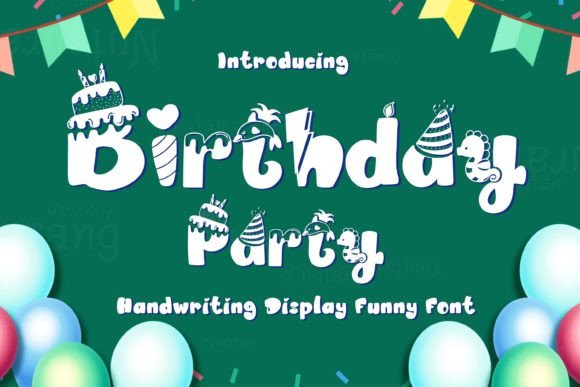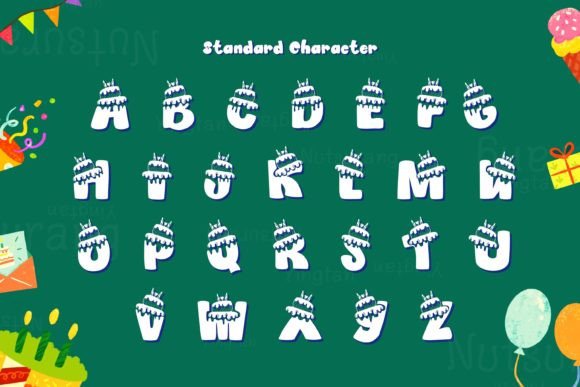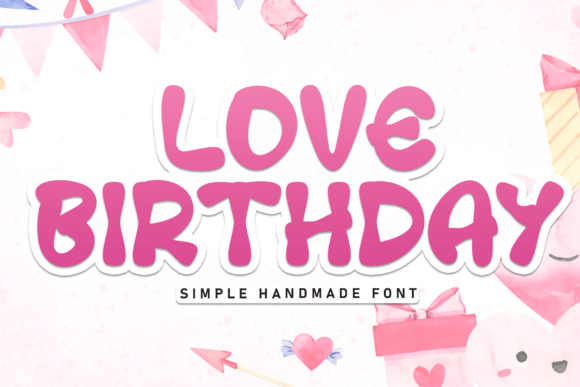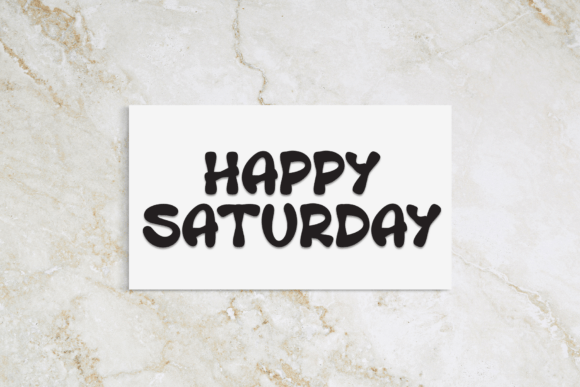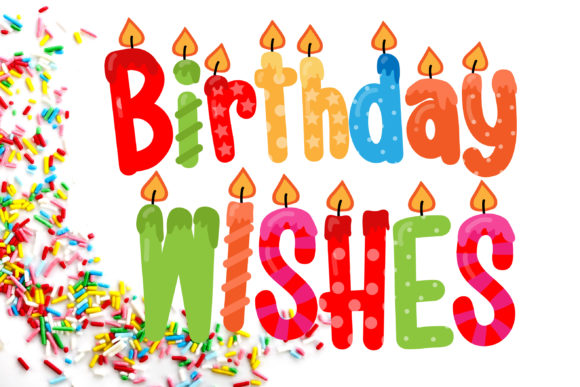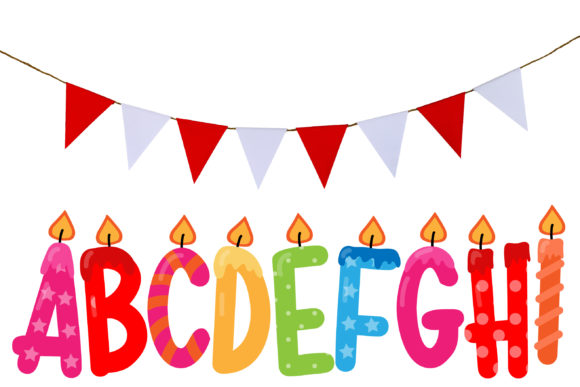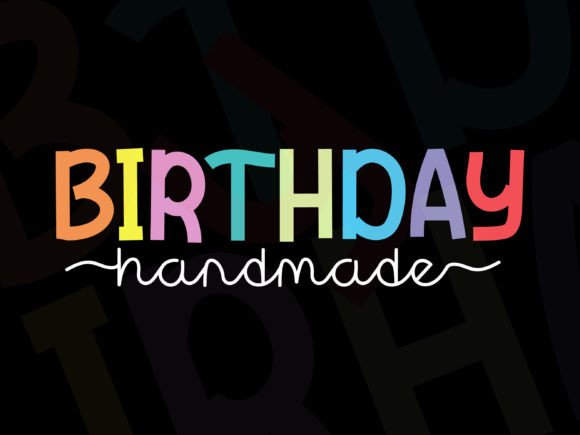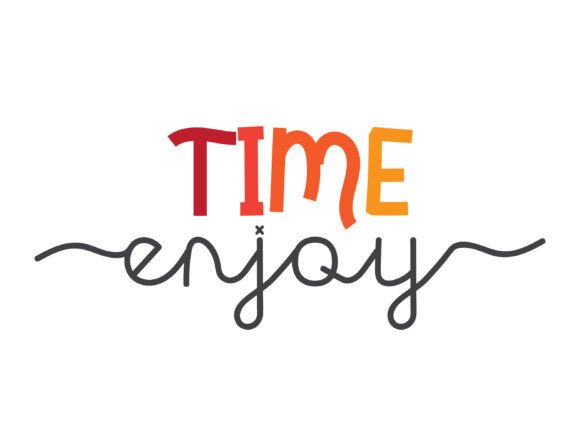
22 Best Birthday Display Fonts to Elevate Your Party Designs
Planning a celebration requires attention to every detail, and typography is one of the most effective ways to set the mood. Whether you are designing invitations, banners, or social media posts, selecting the right birthday display fonts can transform a standard project into a professional, eye-catching masterpiece. In this guide, we have curated a collection of 22 stunning typefaces that capture the essence of joy, celebration, and creativity. By choosing the right aesthetic, you ensure your event stands out from the start.
Top-Rated Birthday Display Fonts for Every Celebration
Birthday Party Font
Birthday Party is a vibrant and festive display font perfect for creating eye-catching invitations, greeting cards, and party decorations. This playful typeface brings a joyful and celebratory aesthetic to any birthday-themed project.
Love Birthday Font
Love Birthday is a charming display font perfect for invitations and party decor, bringing a joyful touch to any creative project focused on birthday display fonts.
Birthday Wishes SVG Duo Font
The Birthday Wishes SVG Duo is a vibrant, multi-layered font set that brings a professional acrylic 3D effect to your festive designs. As an excellent example of birthday display fonts, it is perfect for creating eye-catching invitations and joyful party decor.
Birthday Handmade Font
This charming font captures a celebratory spirit in every character, bringing a joyful, handwritten aesthetic to your creative projects. It is an ideal choice for crafting eye-catching greeting cards, party invitations, and festive event decor.
Birthday Verygood Font
Birthday Verygood is a playful and festive display font, perfectly crafted for creating vibrant invitations, greeting cards, and cheerful party banners. These types of birthday display fonts offer a sense of fun that resonates with all ages.
Birthday Child Font
The Birthday Child font features a playful and bubbly aesthetic that perfectly captures the festive spirit of children’s celebrations. As a standout choice among birthday display fonts, it adds a whimsical and energetic touch to any party invitation or creative design project.
Birthday Festive Font
This delightful display font is the perfect choice for festive invitations, banners, and greeting cards, adding a vibrant and playful touch to your creative projects.
Birthday Girl Font
This delightful festive typeface is perfect for creating vibrant greeting cards and decorating children’s celebrations. Its playful style makes it a top choice among birthday display fonts for creative design projects.
Birthday Ornament Font
This celebratory font features ornate decorative elements, making it an ideal choice for crafting eye-catching greeting cards and festive birthday display fonts.
Cute Birthday Font
This playful and festive typeface is perfect for crafting birthday cards or decorating children’s events, adding a delightful touch to any design. It stands out as an excellent choice among birthday display fonts, capturing attention with its charming and whimsical aesthetic.
Banana Birthday Font
This playful and vibrant typeface is perfect for festive greeting cards and children’s projects, adding a touch of joy to any design. Banana Birthday stands out as a top-tier choice among birthday display fonts, instantly capturing attention with its unique and cheerful aesthetic.
Birthday School Font
This playful birthday display font is perfect for crafting vibrant invitations, school posters, and children’s party decorations. Its fun and energetic style brings a joyful atmosphere to any creative project.
Happy Birthday Font
This festive display font is perfect for creating vibrant greeting cards and themed designs, adding a playful touch to any birthday project.
Birthday Bagel Font
Birthday Bagel is a playful and expressive birthday display font that brings a touch of whimsy and festive charm to any design project. Its bubbly, rounded letterforms are perfect for creating eye-catching headers, party invitations, and celebration-themed graphics.
Birthday Baloon Font
This playful balloon-themed birthday display font is perfect for creating celebratory invitations and party decor, adding a vibrant and festive touch to any design project.
Playful Children Font
This delightful birthday display font is perfectly suited for children’s event stationery and vibrant creative projects. Its unique and friendly letterforms bring a sense of fun and joy to any design.
Speed Race Font